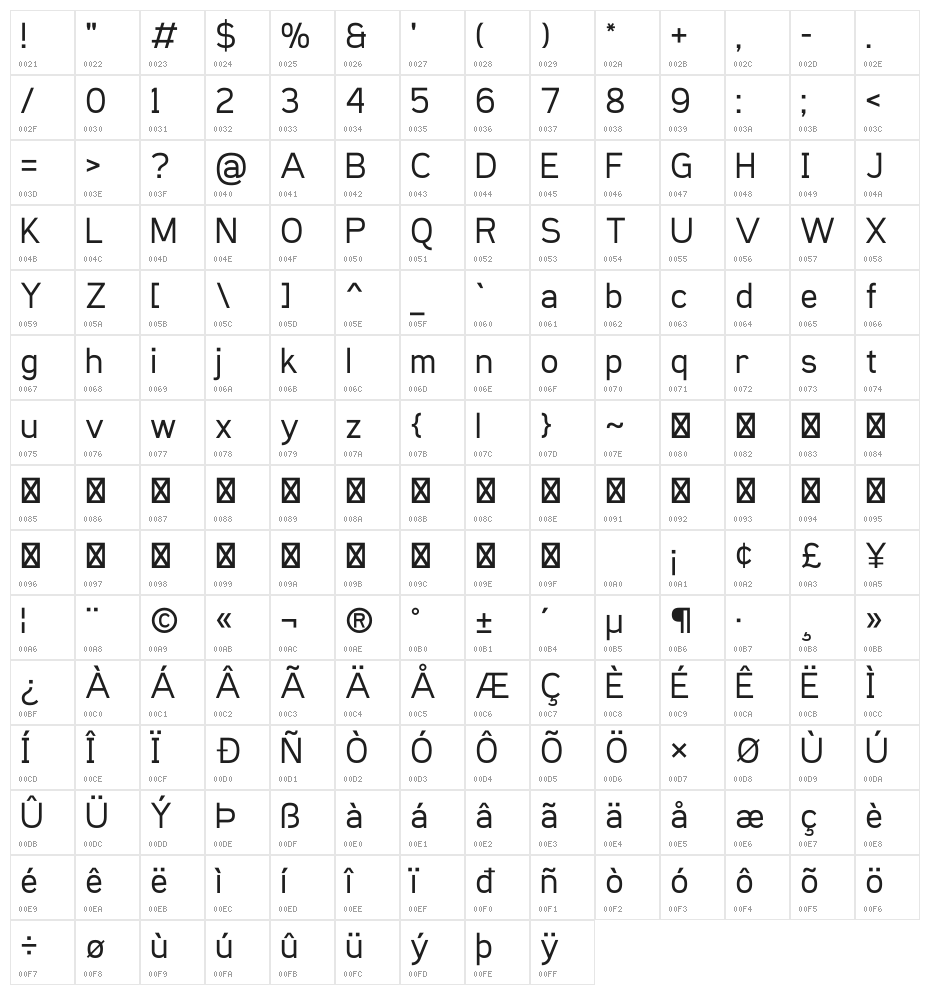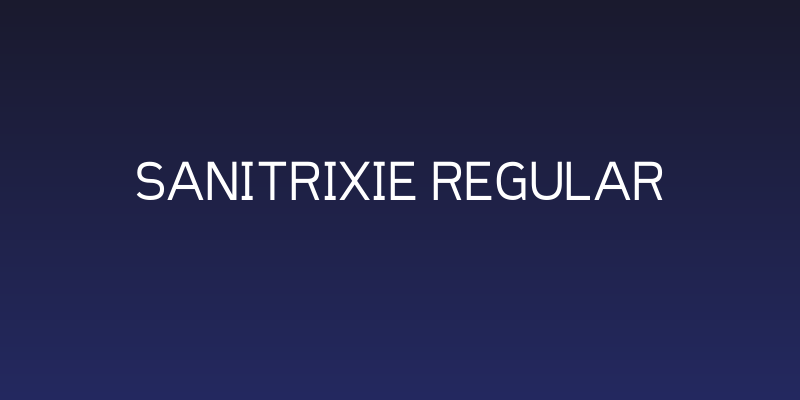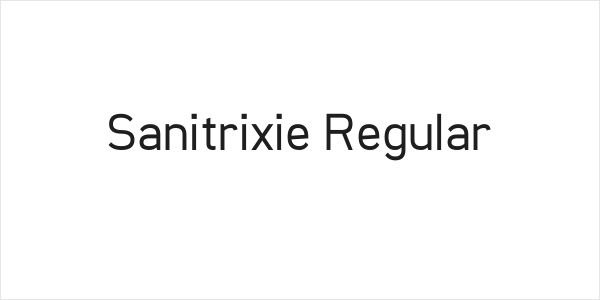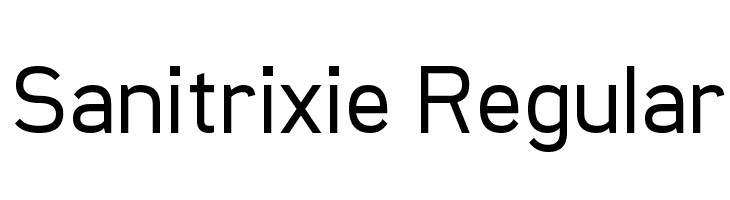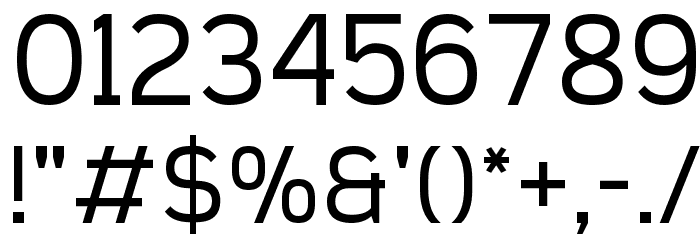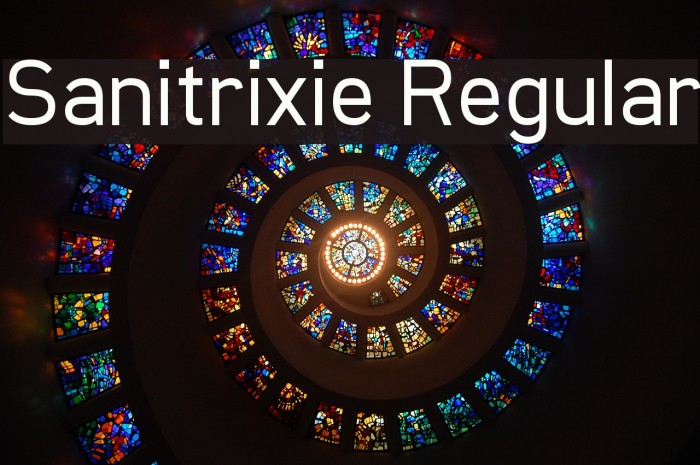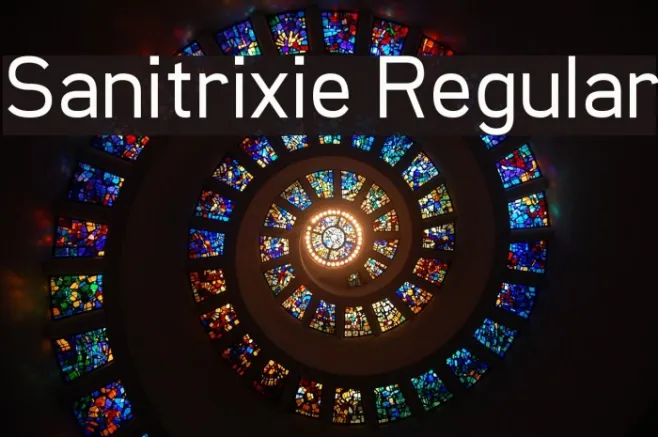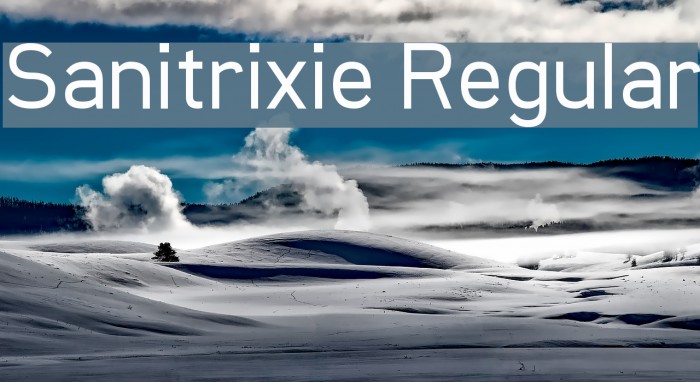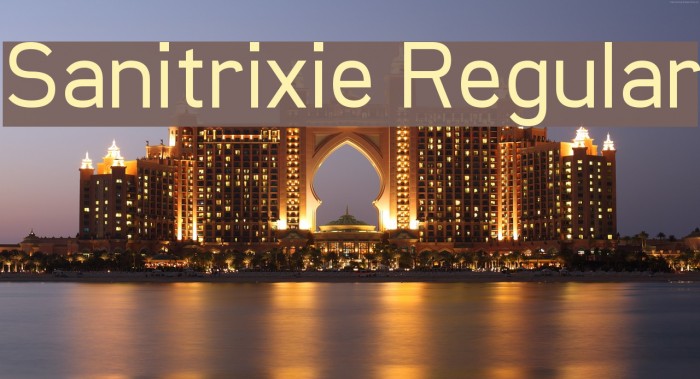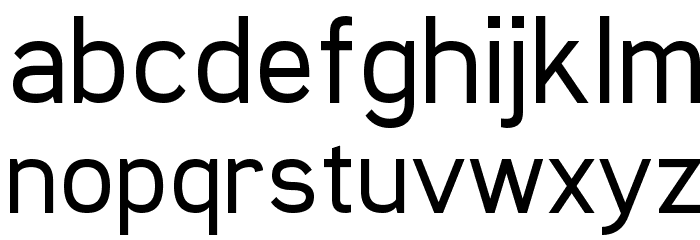
Sanitrixie Regular Font
Sanitrixie Regular Description
This font presents a clean and modern aesthetic with its sans-serif design. The characters are evenly spaced, providing a balanced and readable appearance. The uppercase and lowercase letters maintain a consistent height ratio, enhancing legibility. The numerals are straightforward, aligning well with the overall minimalist style. Special characters are clearly defined, making them suitable for various applications. The uniform stroke width across all characters contributes to a cohesive look, ideal for digital and print media.